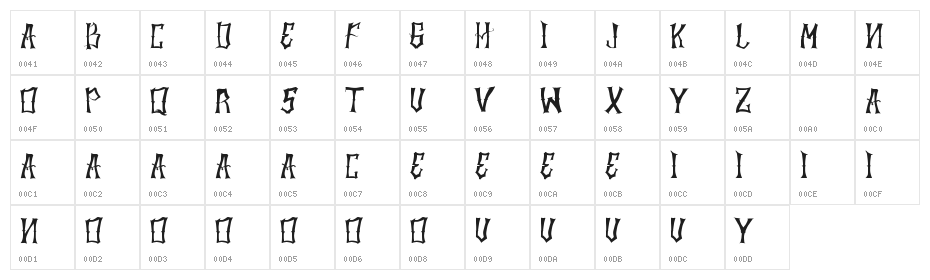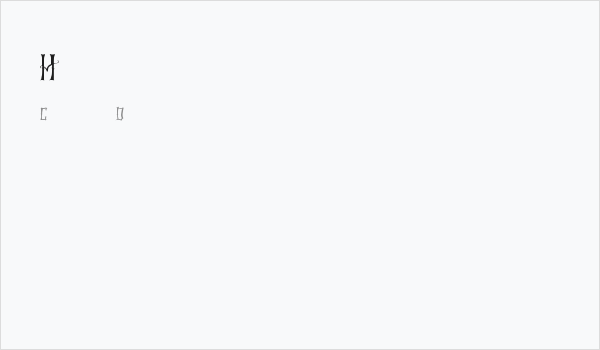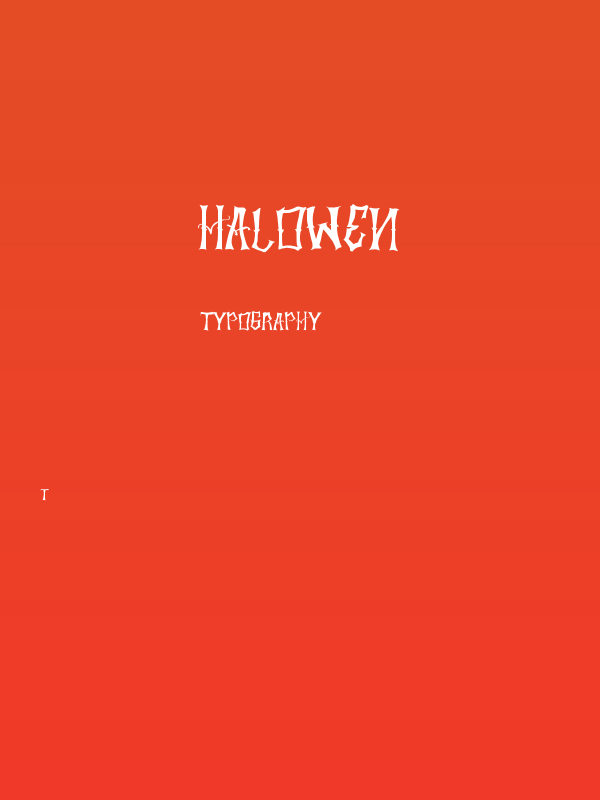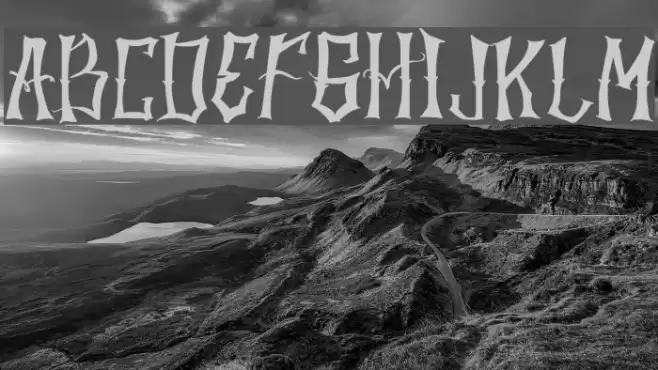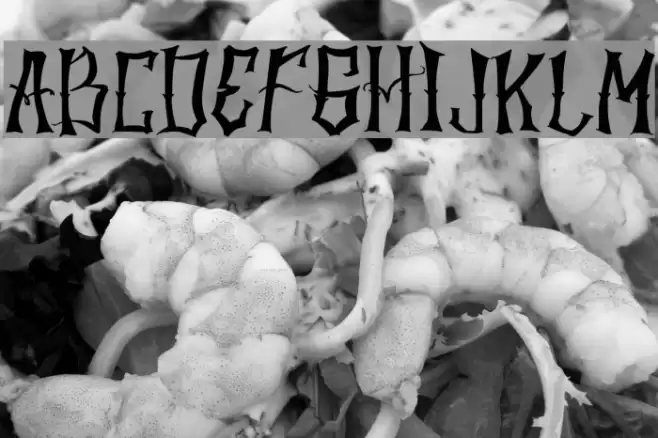
Halowen Font
Halowen Description
This font features a gothic and eerie style, reminiscent of classic horror themes. The characters are sharp and angular, with pointed edges and an uneven baseline that adds to its unsettling appearance. The uppercase letters are particularly striking, with elongated vertical strokes and intricate detailing that evoke a sense of mystery and darkness. The lowercase letters maintain the same aesthetic, ensuring consistency throughout the text. This font is perfect for creating a spooky atmosphere, making it ideal for Halloween-themed projects or any design that requires a touch of the macabre.
| Overall Style | Gothic, Eerie, Horror |
| Use Case | Headlines, Posters, Themed Events |
| Proposed Projects | Perfect for Halloween invitations, horror movie posters, haunted house flyers, and themed event branding. |